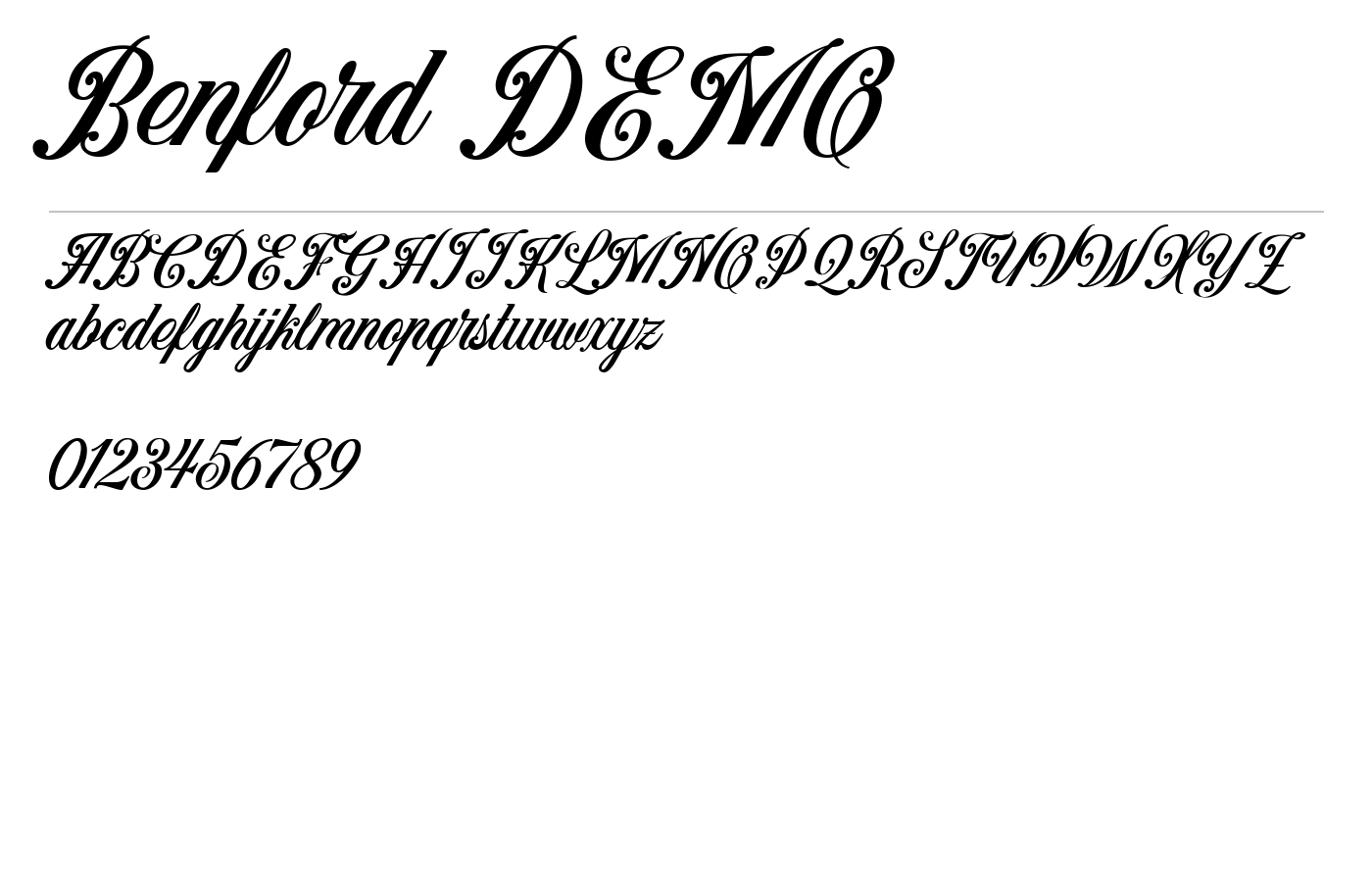
Benford DEMO is an elegant script font characterized by its flowing, graceful letterforms and high contrast between thick and thin strokes. Its cursive style with delicate swashes and refined details makes it perfect for sophisticated branding, invitations, and luxury packaging, where a classic yet stylish impression is desired. This font’s ornate design works best for headlines and decorative use rather than body text, adding a touch of vintage charm and formality.
Benford DEMO Font
About Benford DEMO Font
| Font family | Benford DEMO Font |
| Designer | Angin Studio |